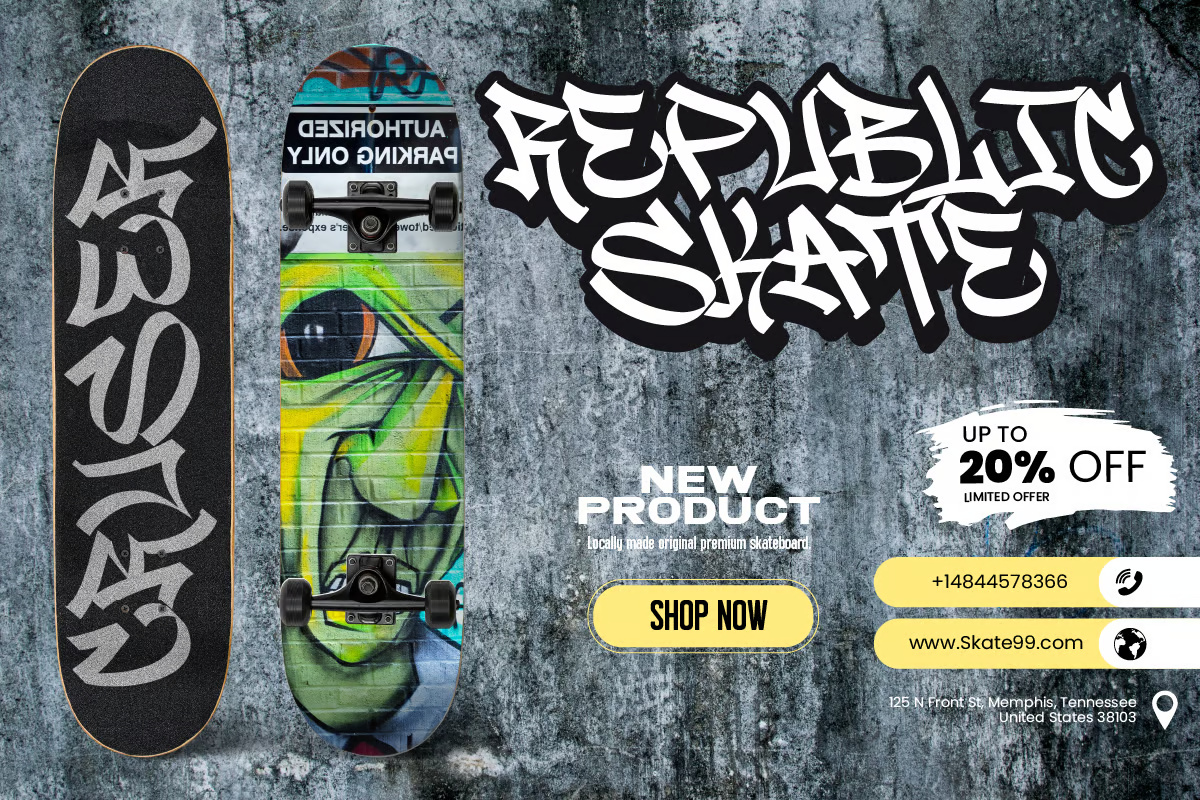
Street Breaker Bold Urban Graffiti Font
Street Breaker is a bold and energetic graffiti font, perfect for design projects that need an authentic touch of street art. Inspired by urban mural scribbles, this font captures the raw essence of hip-hop, streetwear, and underground culture. Designed with intricate details to mimic real graffiti handwriting, Street Breaker features 207 glyphs, providing full support for uppercase and lowercase letters, numbers, and symbols. It also includes multilingual support, making it compatible with various languages. Versatile and dynamic, this font is ideal for posters, apparel branding, logos, album covers, and social media content.